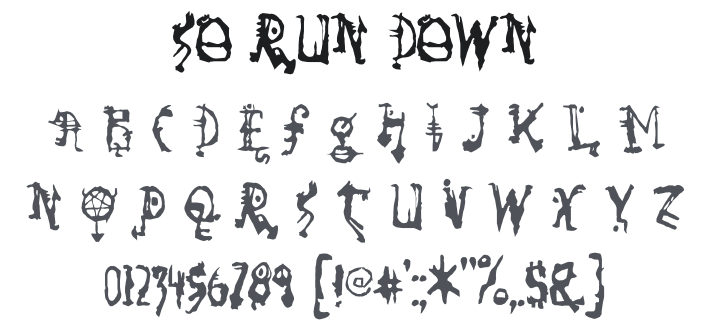
So Run Down Font
About So Run Down
So Run Down is a deranged, demonic horror display typeface where every letterform appears possessed and falling apart — jagged spikes, dangling appendages, hollow eye-like voids, and grotesque organic protrusions give each character a genuinely unsettling, creature-like personality. No two letters feel stable or sane. Perfect for extreme horror game titles, Halloween designs, occult branding, dark metal posters, and any headline that needs to look truly cursed.